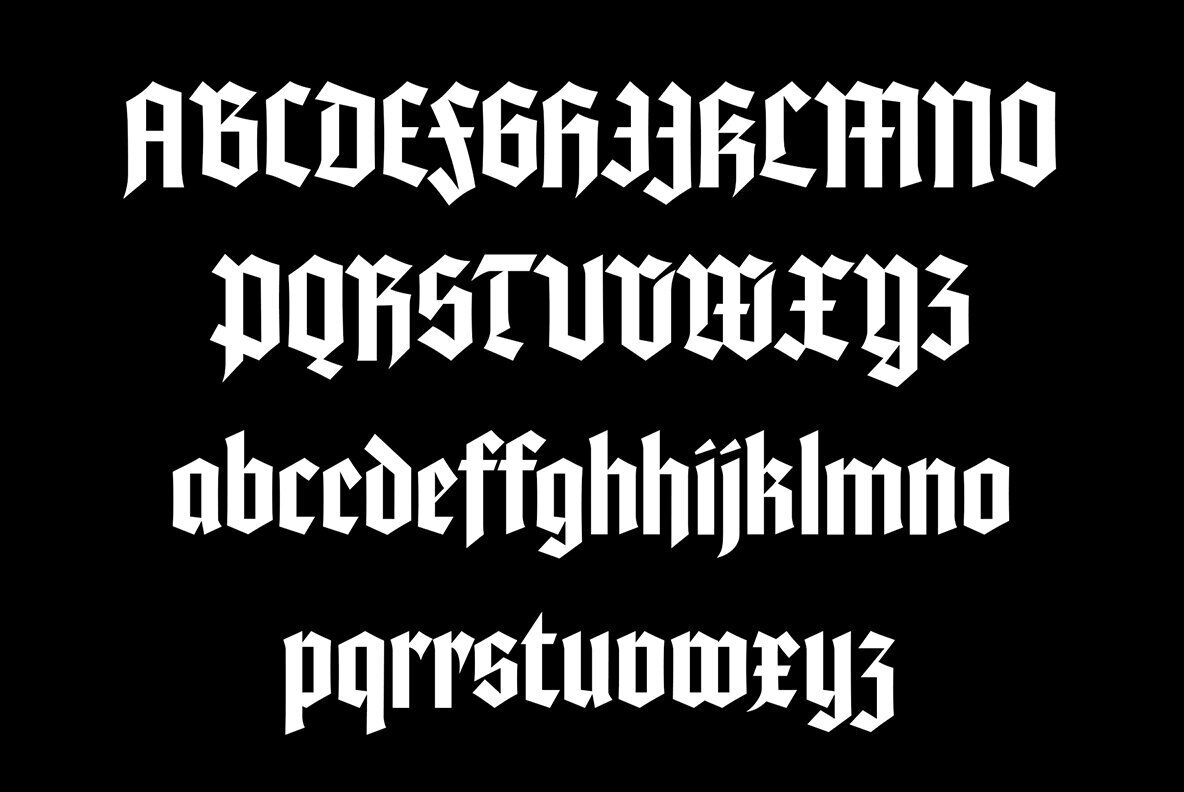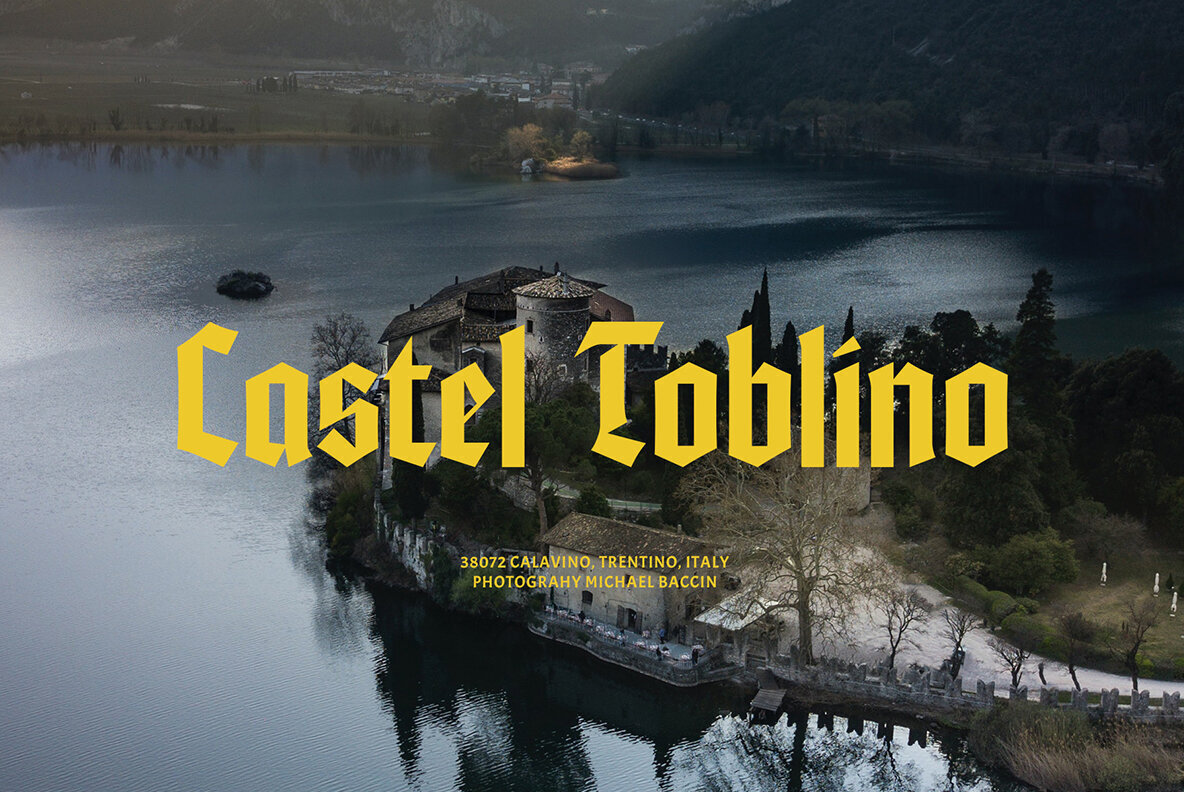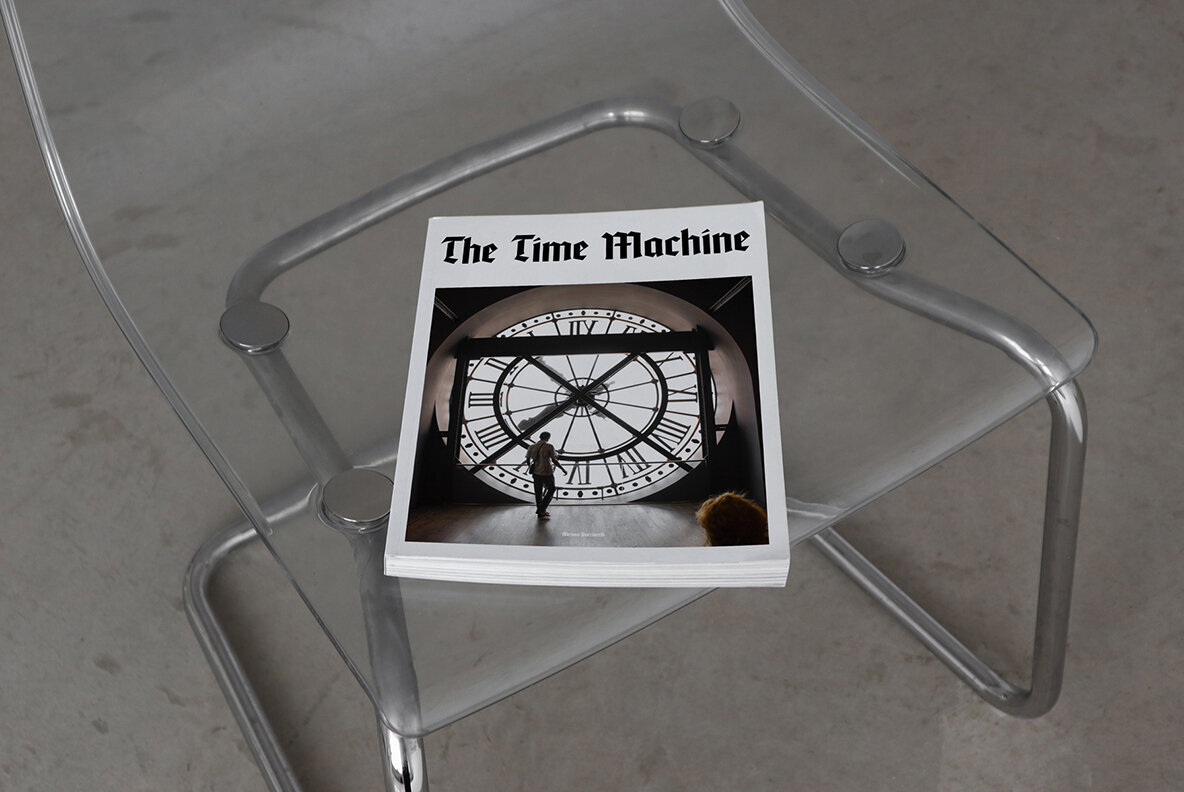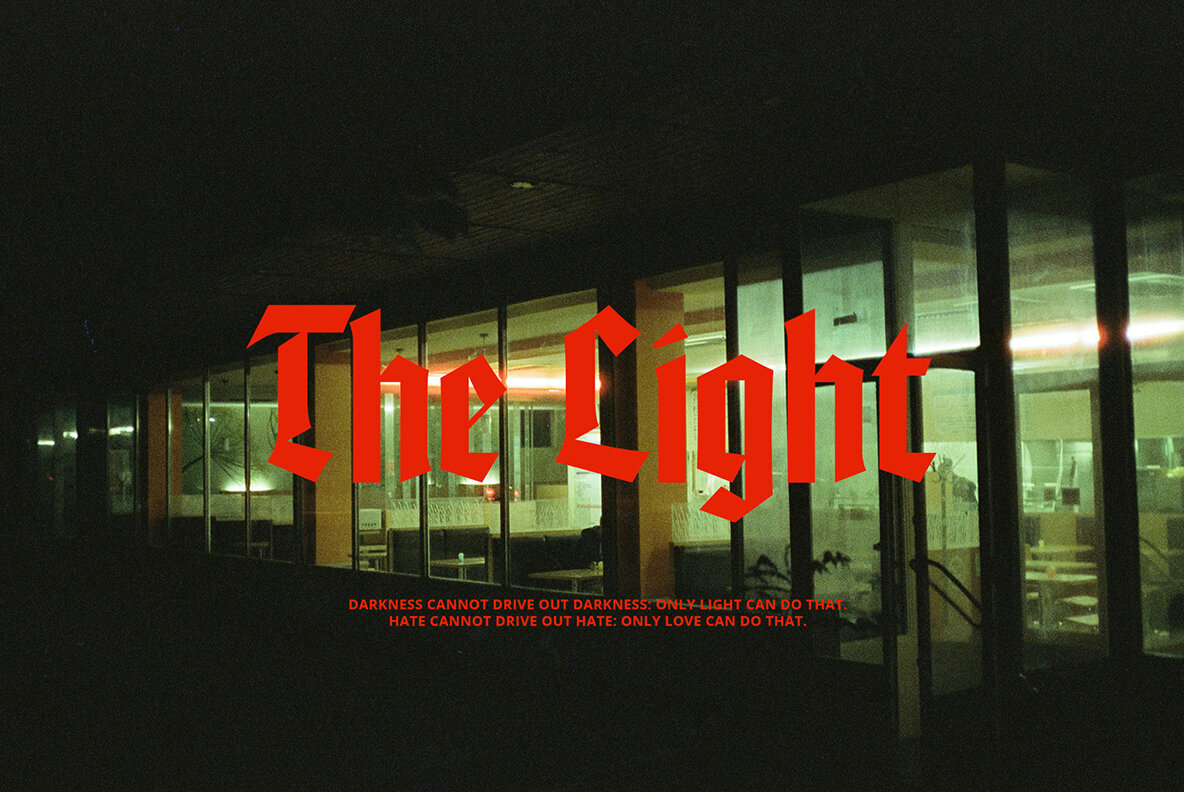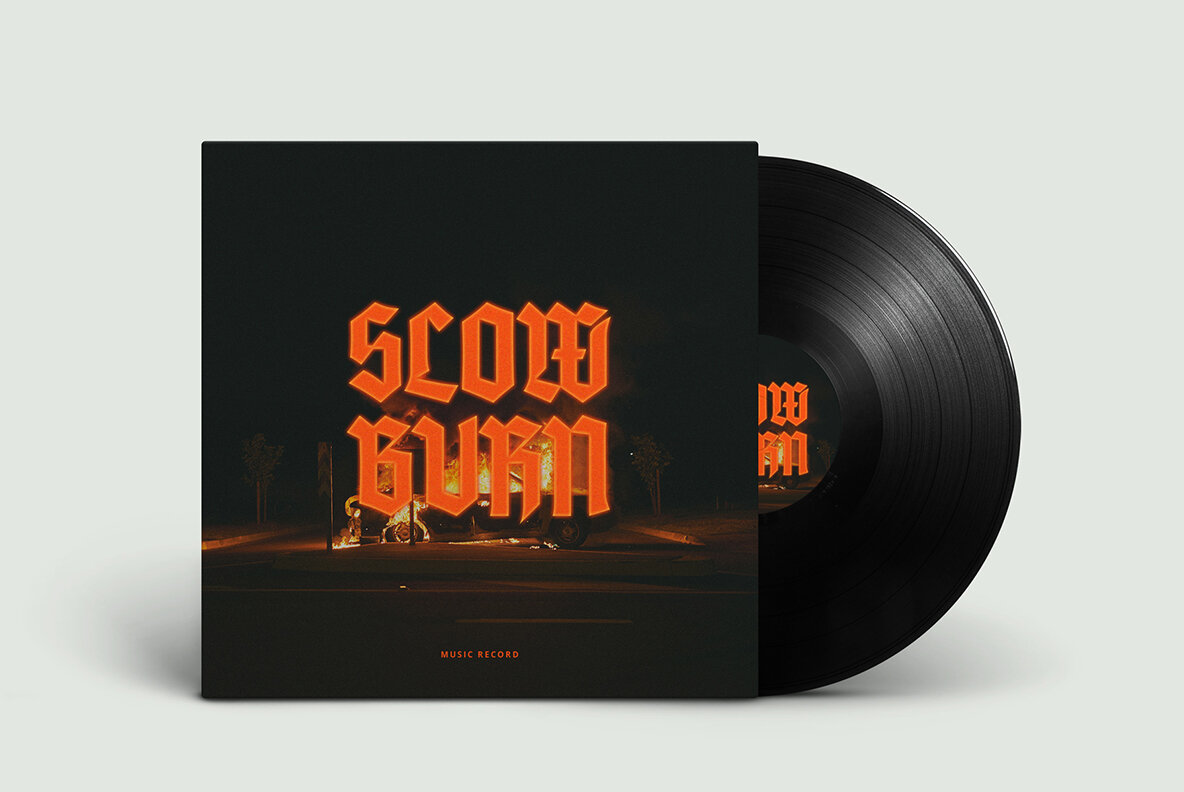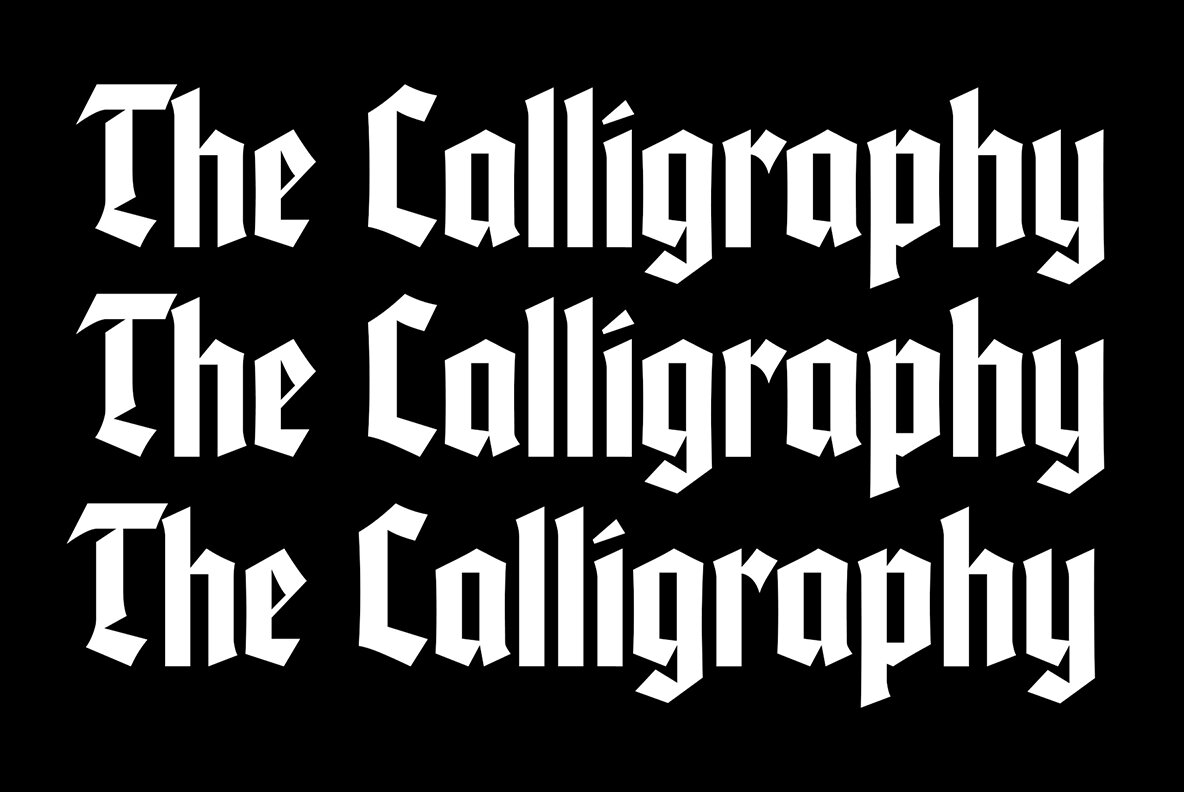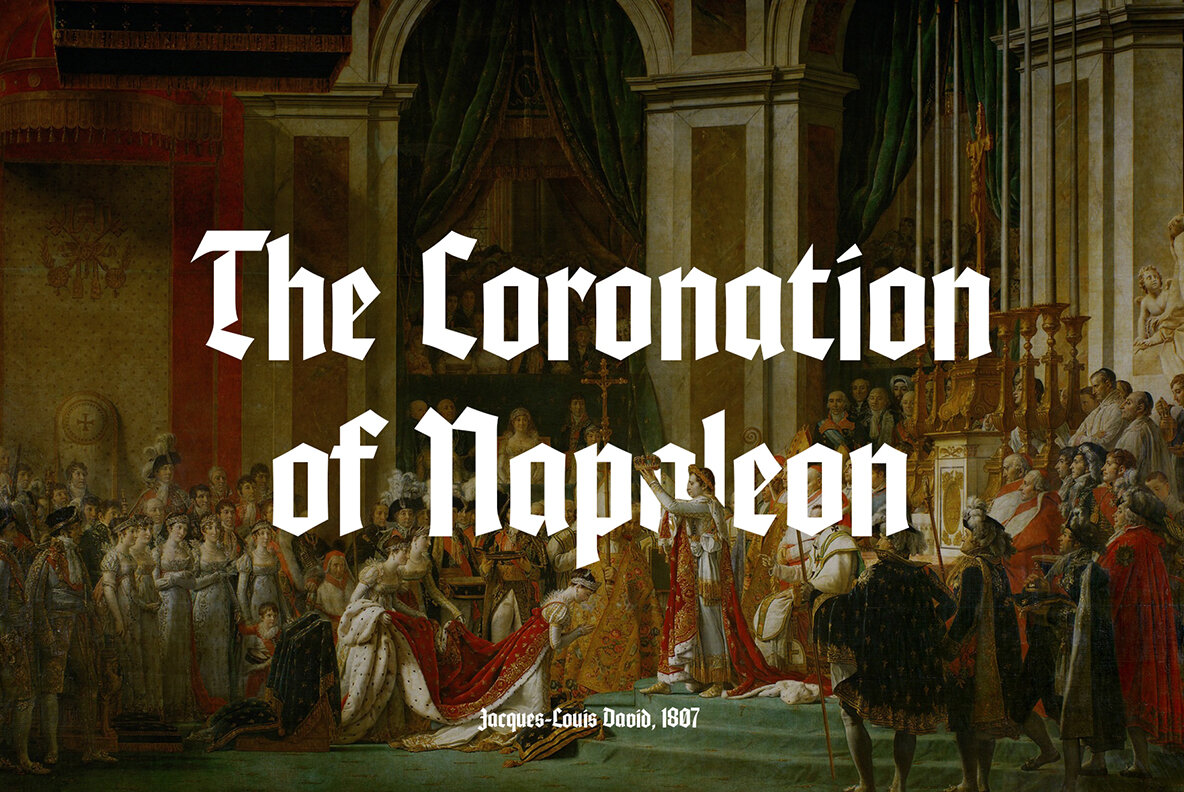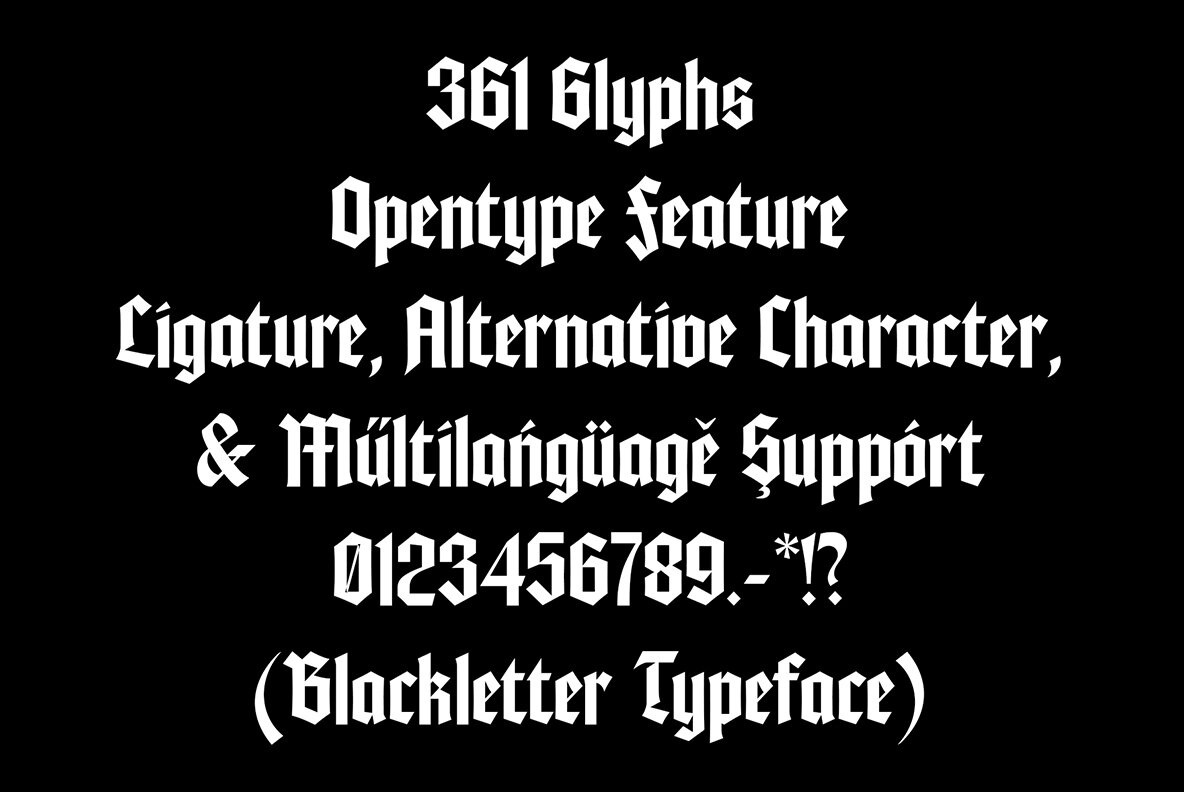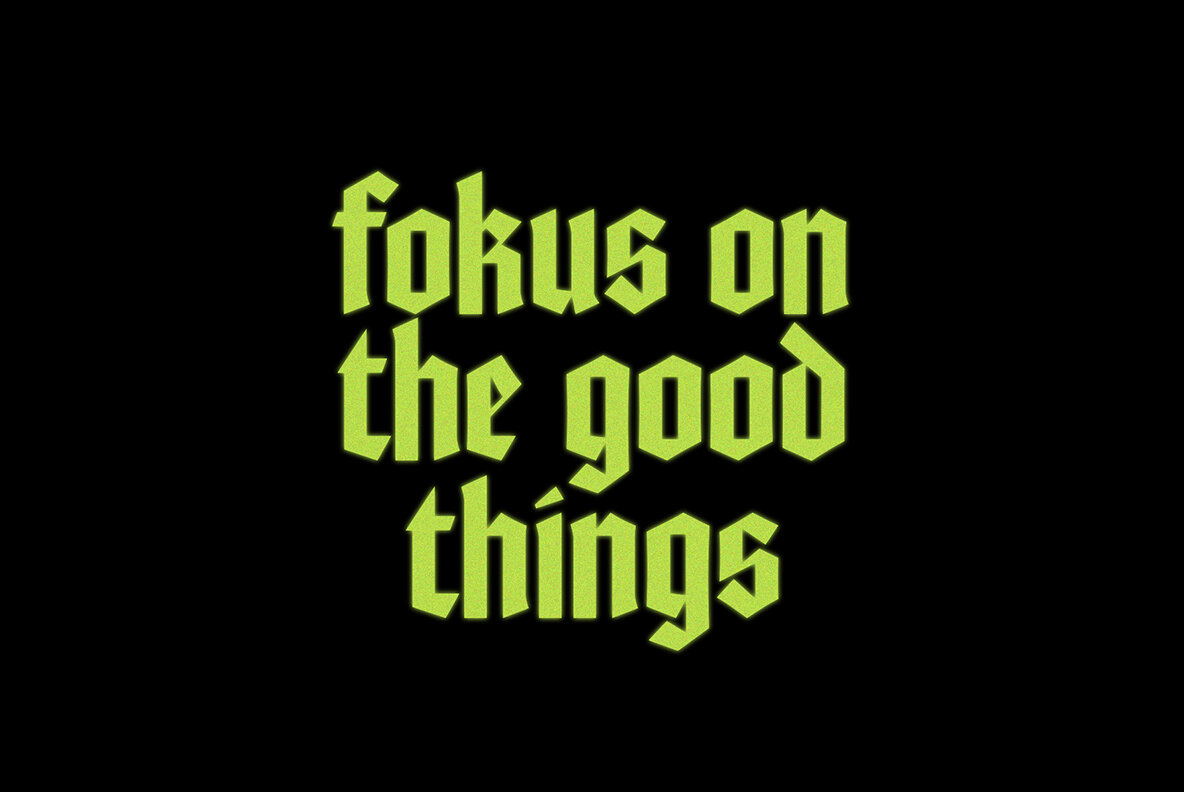
ED Smither Font
ED smither is a textura type blackletter font that looks clean and modern. This font design is inspired by “Standartarte”, 1934 by Schelter & Giesecke Leipzig. with a redesign that makes the letters look modern. This font also includes supporting features such as ligatures, alternative characters and multilingual support.